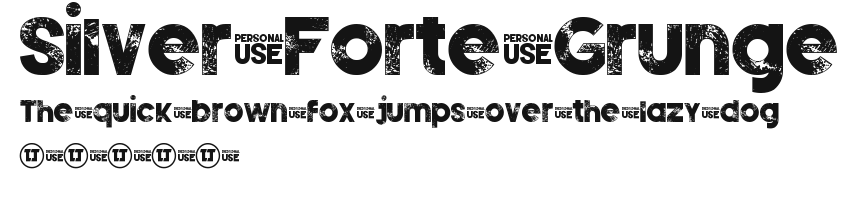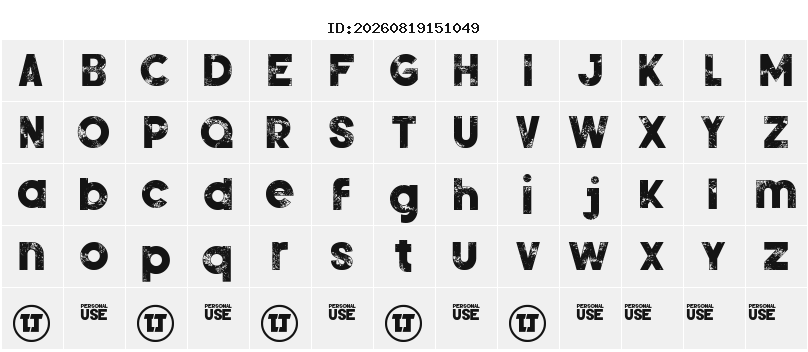
Silver Forte Grunge Preview
• Font Name: Silver Forte Grunge
• Font Style: Grunge
• Designer: Luis Jaramillo
• Manufacturer: LJ-Design Studios
About Silver Forte Grunge.ttf
Silver Forte Grunge.ttf is a modern, elegant sans-serif font designed for ultimate readability and visual harmony. Perfect for branding, headlines, web design, and print materials.